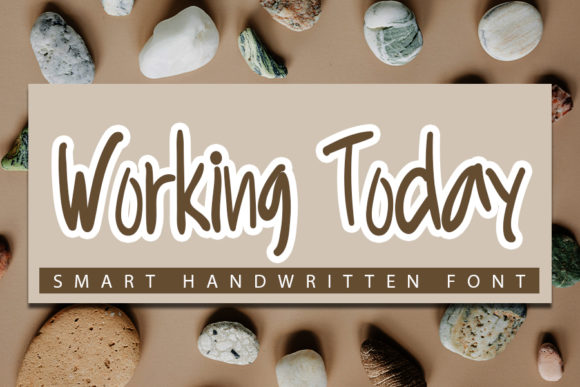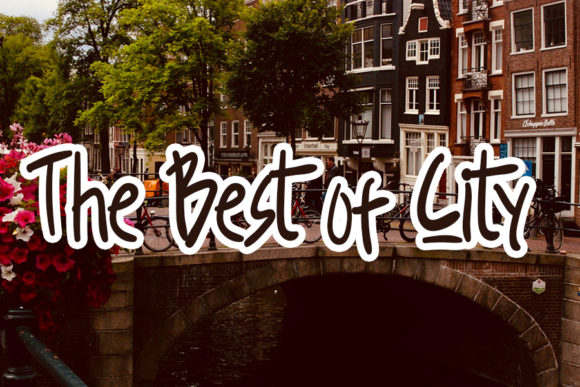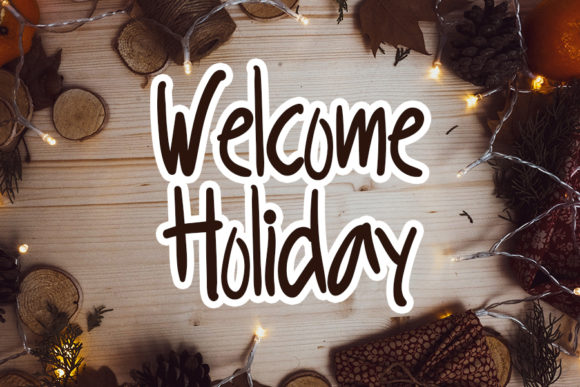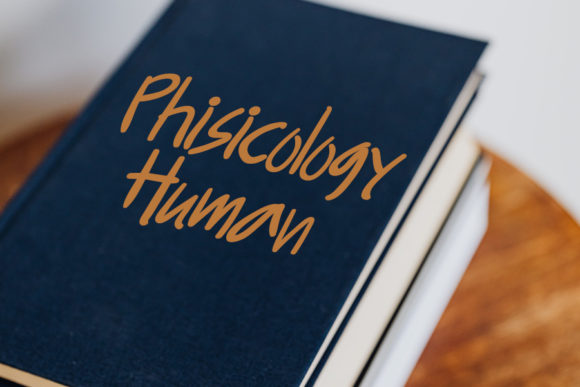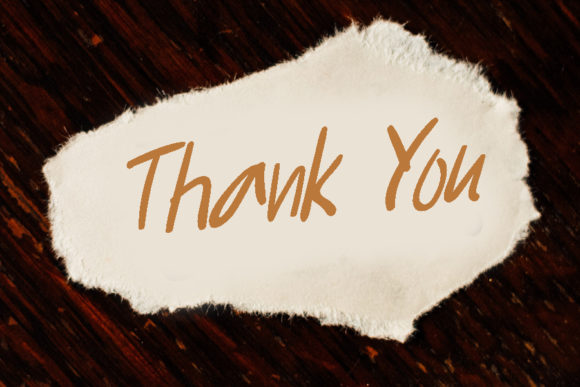
Working Today Font
About Working Today Font
Working Today looks fun and unique! Its casual charm makes it appear wonderfully down-to-earth, readable and, ultimately, incredibly versatile. Working Today will look outstanding in any context, whether it’s being used on busy backgrounds or as a standalone headline!